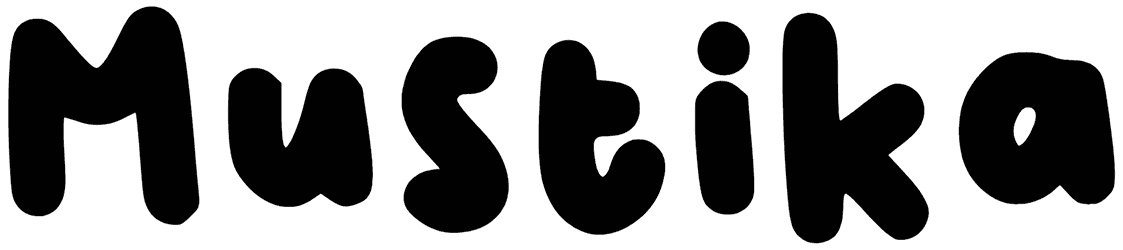
Mustika Font
Creating a groovy website header and maintaining a sensible vibe can become an easy task by using a comic font. Mustika is a hand-drawn font with bold letters and round marker tips to create this effect.
From notebook covers to kindergarten posters, this font would be perfect, and with the collection of characters that you get, which is both uppercase and lowercase, plus numbers and punctuation marks, you couldn’t find a better option.